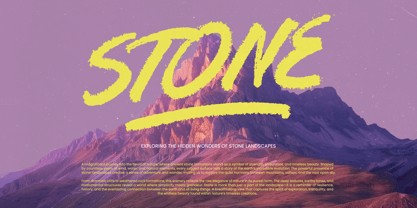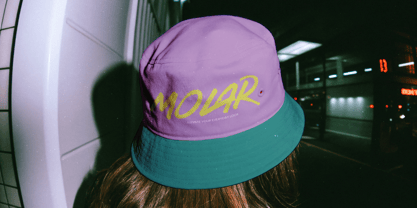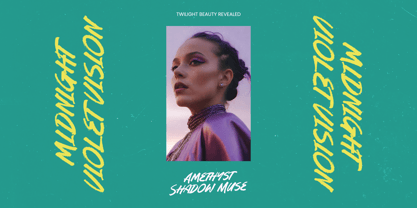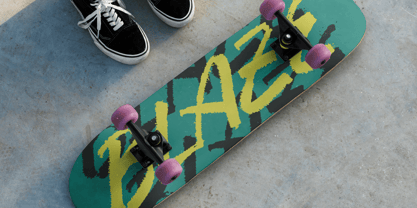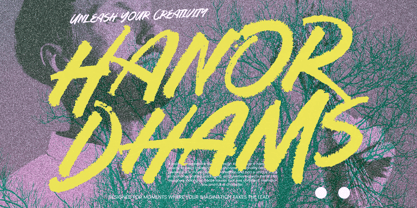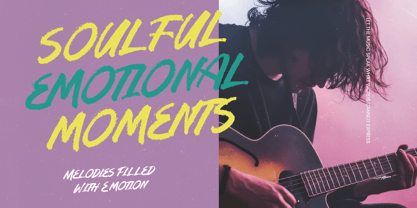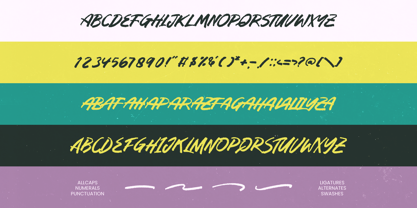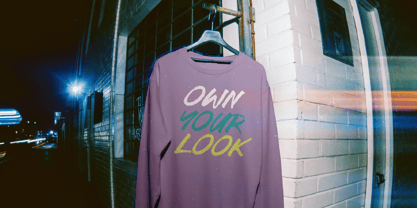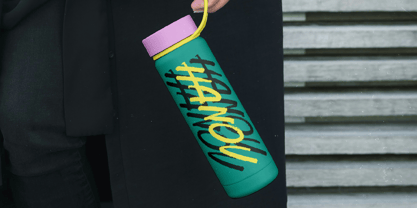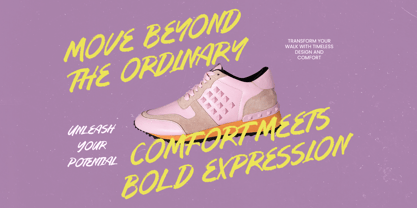
Hanor Dhams
La famille de polices Hanor Dhams a été conçue par Heru Utama Putra et publiée par Letterena Studios. Hanor Dhams contient 2 styles et options de package familial. En savoir plus sur cette famille
Hanor Dhams - Display Brush Font
Unleash raw energy and artistic flair into your creative projects with Hanor Dhams - Display Brush Font. This bold strokes masterpiece captures the hand-painted aesthetic of real brushwork, delivering a high-impact visual experience that demands attention. Its textured edges and dynamic silhouettes provide an authentic, gritty feel that is perfect for contemporary designs seeking a touch of urban rebellion and artistic sophistication.
Global communication meets uncompromising style in this masterfully crafted typeface. With its extensive multilingual support, Hanor Dhams - Display Brush Font adapts seamlessly across global markets, making it incredibly versatile for international projects. This global reach ensures your message maintains its visual power regardless of the audience, bridging the gap between local charm and worldwide appeal through consistent branding.